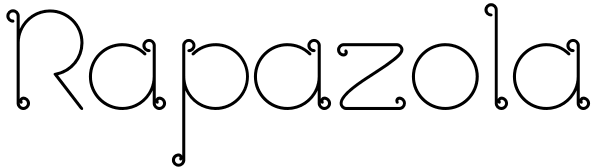
Rapazola
Rapazola is a new geometrical typeface, it was inspired by the moments of childhood and it's play. This typeface contains five different weights, Extra Light, Light, Regular, Bold and Extra Bold, all with the completed alphabet A to Z, upper and...